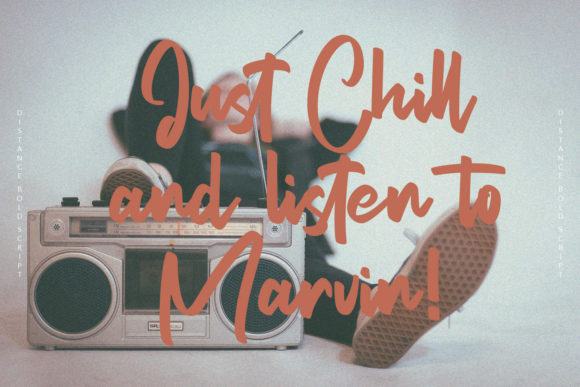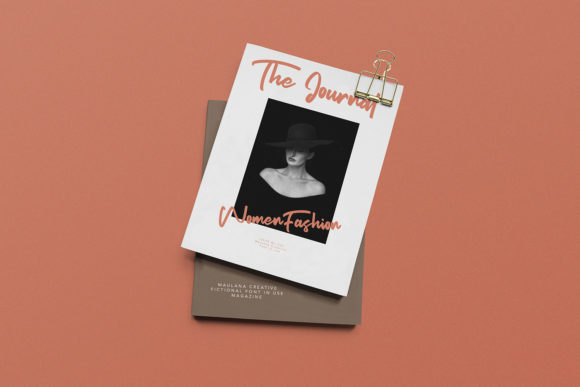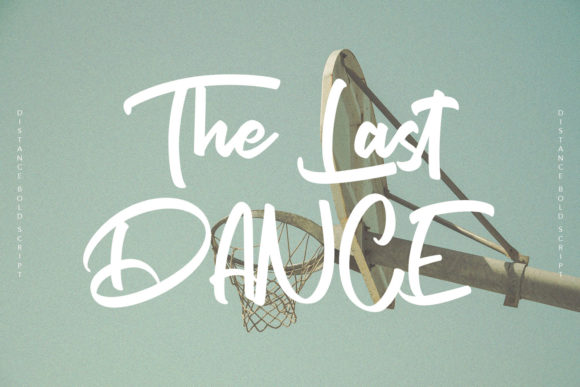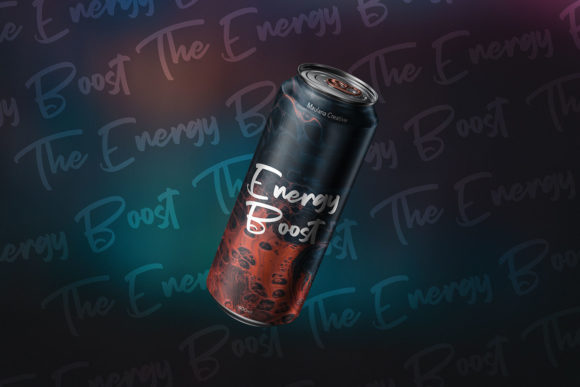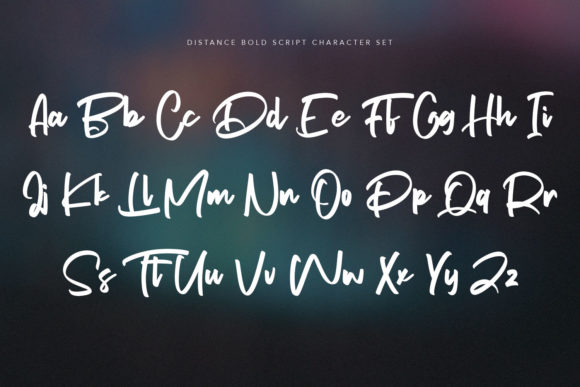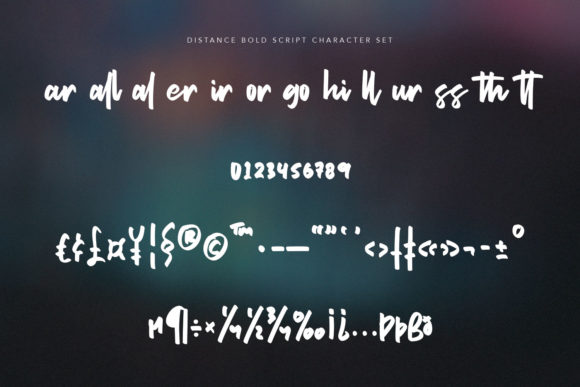
Introducing Distance Font: The Elegant and Timeless Choice for Your Design Projects
Are you tired of using the same old fonts for your design projects? Look no further than Distance Font, a beautiful and elegant handwritten font that is sure to take your designs to the next level. With its incredibly distinct and timeless style, Distance Font is the perfect choice for designers and crafters who want to add a touch of sophistication and elegance to their work.
What is Distance Font?
Distance Font is a flowing handwritten font that is described by an elegant touch. It is a unique and stylish font that is perfect for a wide range of design projects, from wedding invitations and branding materials to social media graphics and blog posts. With its beautiful, cursive script and elegant flair, Distance Font is sure to make your designs stand out from the crowd.
Key Features of Distance Font
• Elegant and Timeless Style: Distance Font has an incredibly distinct and timeless style that is sure to add a touch of sophistication and elegance to your designs.
• Flowing Handwritten Script: The font features a beautiful, flowing handwritten script that is perfect for creating elegant and refined designs.
• Unique and Stylish: Distance Font is a unique and stylish font that is sure to make your designs stand out from the crowd.
• Perfect for a Wide Range of Projects: The font is perfect for a wide range of design projects, from wedding invitations and branding materials to social media graphics and blog posts.
Why Choose Distance Font?
So why choose Distance Font for your design projects? Here are just a few reasons why this font is a great choice:
• Adds a Touch of Elegance: Distance Font adds a touch of elegance and sophistication to your designs, making it perfect for projects where you want to make a lasting impression.
• Versatile: The font is versatile and can be used for a wide range of design projects, from formal events to everyday designs.
• Easy to Read: Distance Font is easy to read, even at small sizes, making it perfect for body text and other applications where readability is important.
• Unique and Memorable: The font is unique and memorable, making it perfect for projects where you want to stand out from the crowd.
How to Use Distance Font
Using Distance Font is easy! Here are a few tips for getting the most out of this beautiful font:
• Pair it with Other Fonts: Distance Font pairs well with other fonts, so don’t be afraid to experiment with different combinations to find the perfect look for your project.
• Use it for Headings and Titles: The font is perfect for headings and titles, where its elegant and refined style can really shine.
• Add a Personal Touch: Distance Font is perfect for adding a personal touch to your designs, whether you’re creating wedding invitations, branding materials, or social media graphics.
In conclusion, Distance Font is a beautiful and elegant handwritten font that is perfect for designers and crafters who want to add a touch of sophistication and elegance to their work. With its incredibly distinct and timeless style, Distance Font is sure to make your designs stand out from the crowd. Whether you’re creating wedding invitations, branding materials, or social media graphics, Distance Font is a great choice.